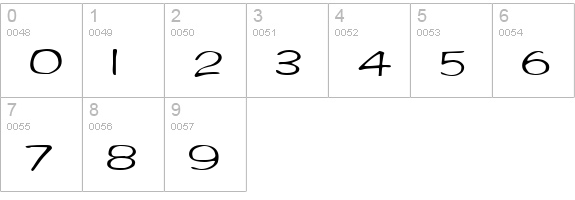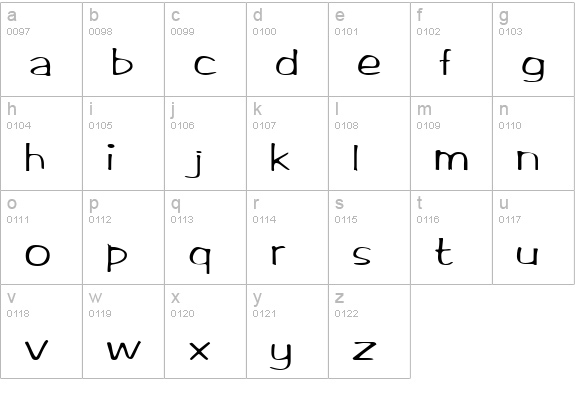
Arctic Regular Font Details
Arctic Regular is the standard, neutral variant in the Arctic typeface family \xE2\x80\x94 well suited to general body text, paragraphs, and standard typographic work.
Arctic Regular font is a modern and versatile typeface that combines elegance with functionality. With its clean lines and crisp letterforms, Arctic Regular is perfect for a wide range of design projects, from branding to editorial design. This font exudes a sense of sophistication and professionalism, making it ideal for both print and digital applications. The best part? Arctic Regular font is available for free download at FontsMarket.com. This means that you can easily access this high-quality font without having to worry about any additional costs. Whether you are a designer looking to add a new font to your collection or a business owner in need of a polished typographic solution, Arctic Regular is a great choice that won't break the bank. Download Arctic Regular font today and elevate your design projects with its timeless appeal.